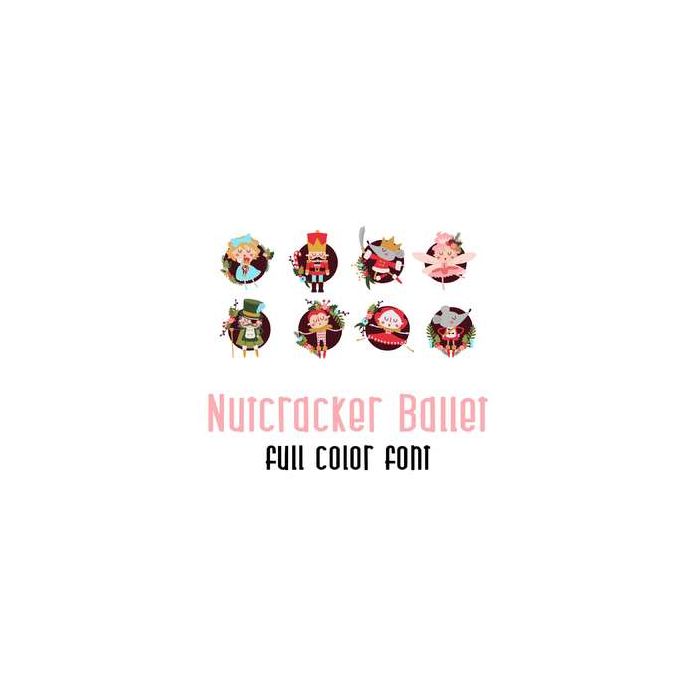
This adorable full color doodlebat font features beautiful imagery of the Nutcracker perfect for the Holidays. Perfect for cards, crafts, gifts, decor, scrap book pages, planner stickers and more!